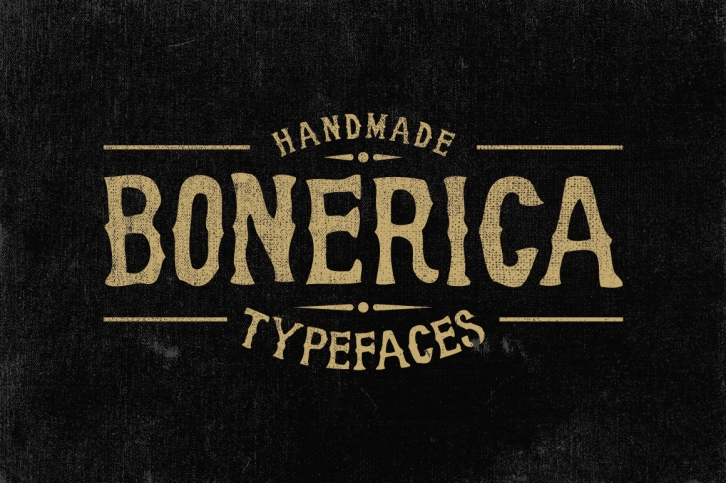
Bonerica is a hand-made serif. It’s great for a large range of different types of projects, such as logo’s, greeting cards, posters, t-shirt designs and much more!